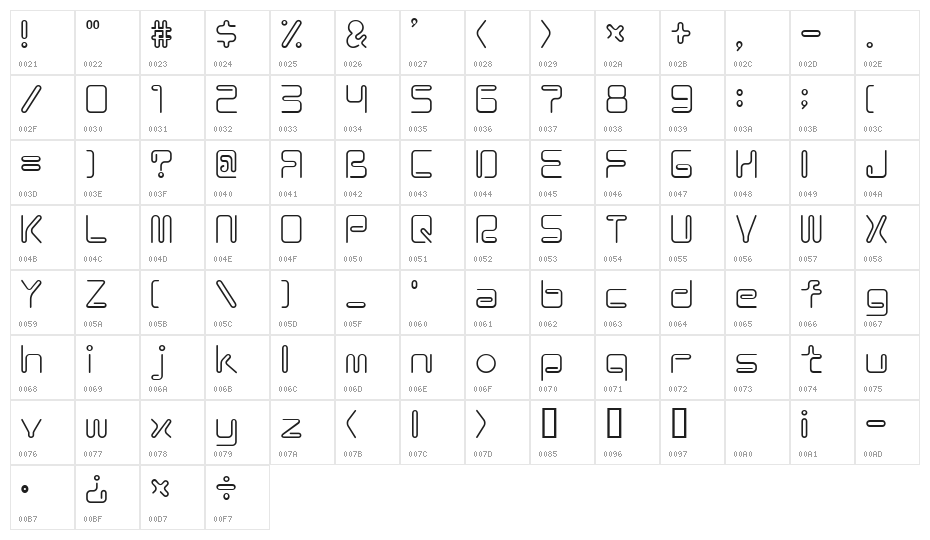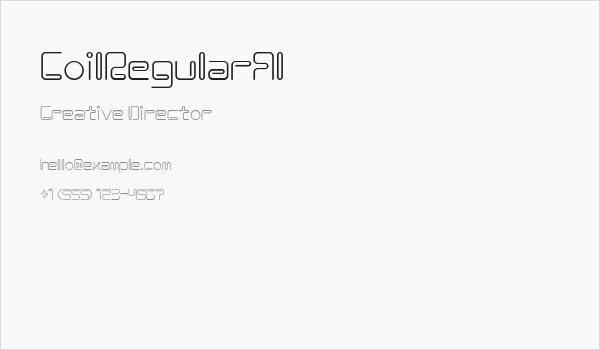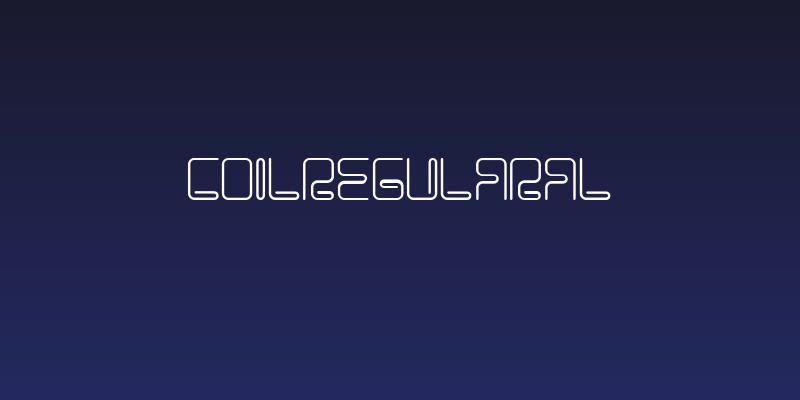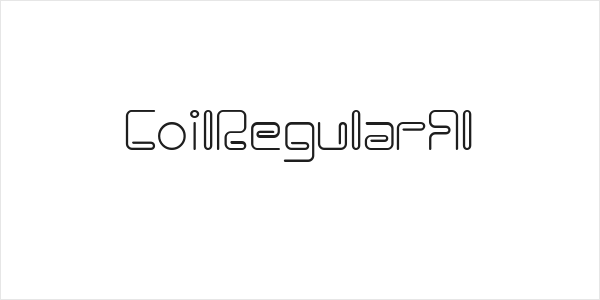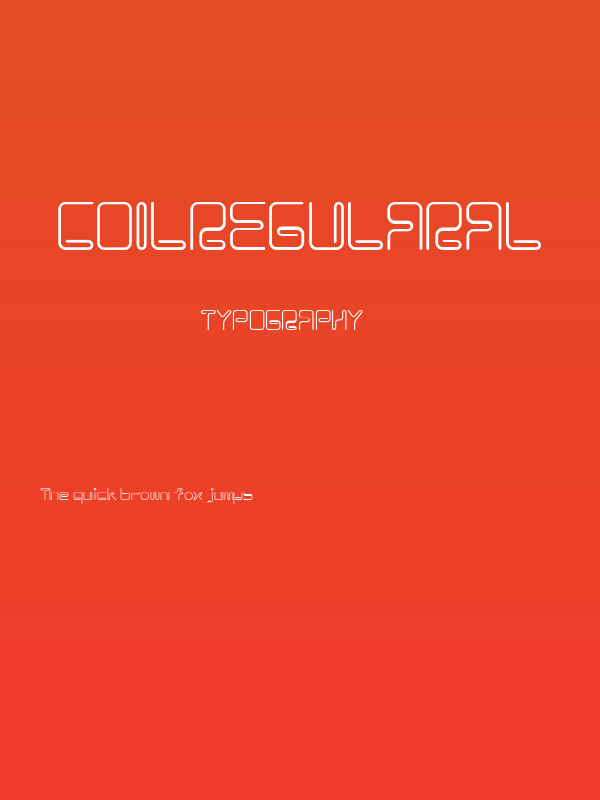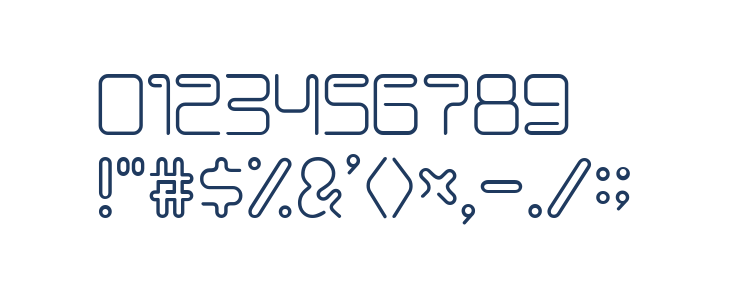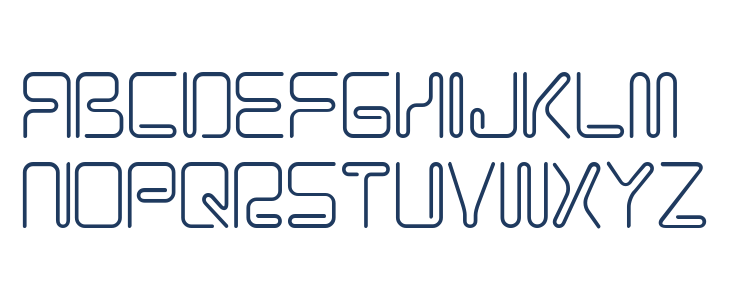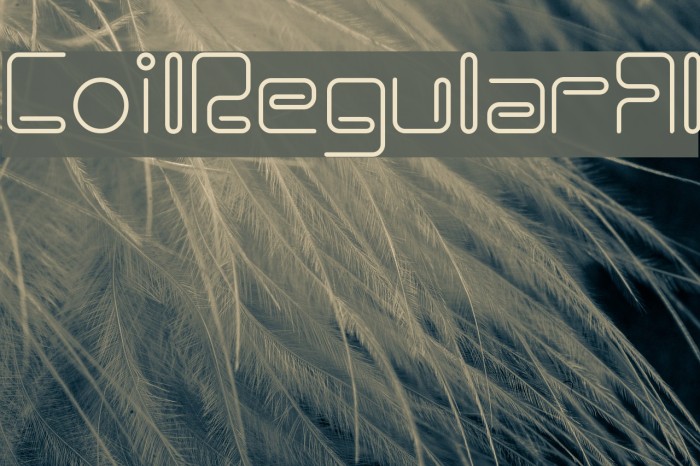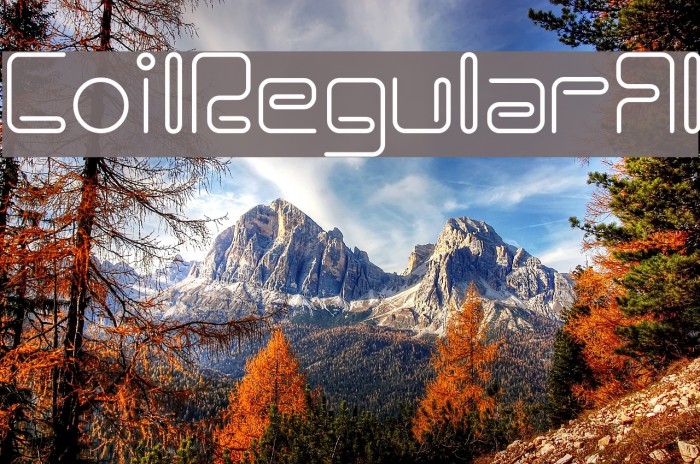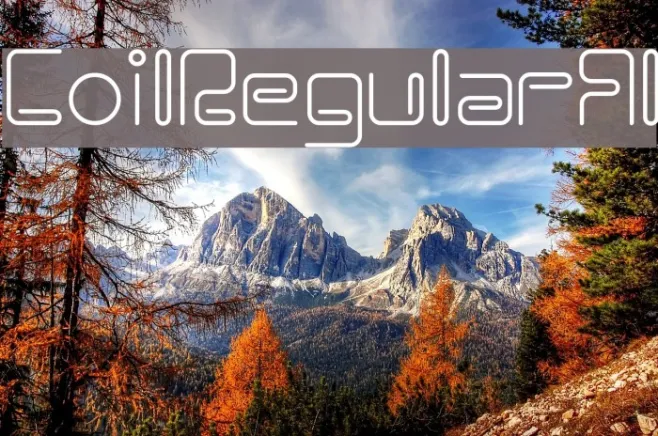
CoilRegularAl Font
CoilRegularAl Description
This font features a unique, futuristic design with a continuous line style that forms each character. The letters are constructed with rounded edges and a geometric structure, giving it a modern and sleek appearance. The uppercase and lowercase letters maintain a consistent style, with some characters like 'e' and 's' having distinctive loops and curves. Numbers and special characters follow the same design principles, ensuring uniformity across the font. The overall look is clean and minimalistic, making it suitable for contemporary design projects.
| Proposed Projects | Ideal for tech-related branding, modern posters, digital interfaces, and innovative product packaging. |